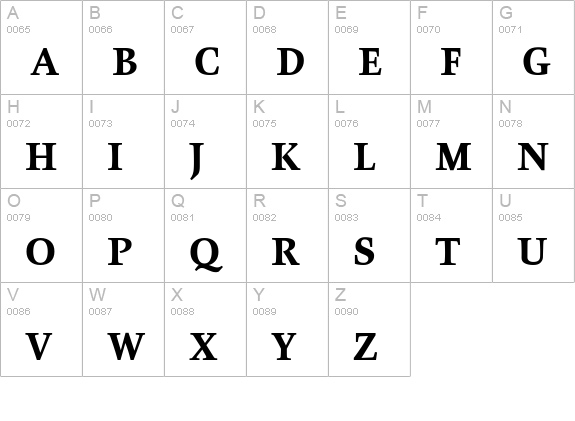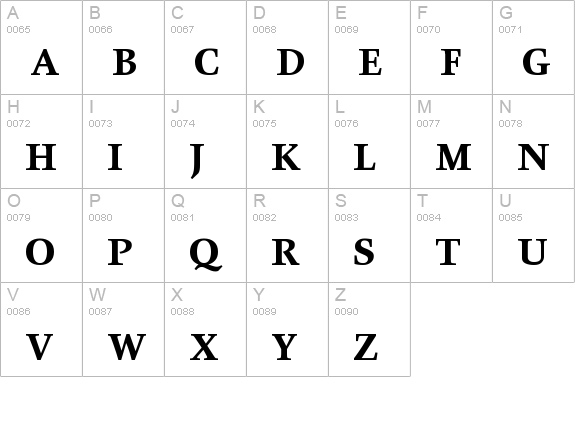
Gilgamesh Bold Font Details
Gilgamesh Bold is a strong, high-contrast variant in the Gilgamesh typeface family \xE2\x80\x94 well suited to headlines, attention-grabbing titles, and strong calls-to-action.
Gilgamesh Bold font is a striking and powerful typeface that exudes confidence and strength. Its bold and commanding presence makes it perfect for headlines, titles, and other attention-grabbing designs. With its clean lines and modern appeal, Gilgamesh Bold is sure to make a statement in any project. The best part is that Gilgamesh Bold font is free to download at FontsMarket.com. This means you can easily add this impressive font to your collection without any cost. Don't miss out on the opportunity to enhance your designs with the bold and impactful Gilgamesh Bold font. Download it now and let your creativity shine!